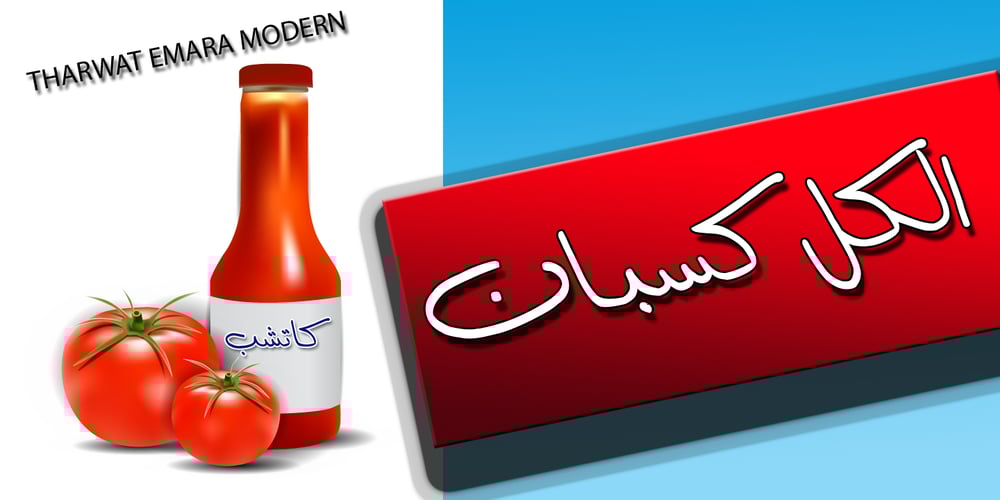
TE Modern Font Family was designed by Tharwat Mohamed Emara and published by Tharwat Emara. TE Modern contains 7 styles and family package options. Its one of the modern Arabic fonts, a spontaneous free line characterized by beauty and speed of reading. To be used in advertisements, writing titles, magazines, cartoons, films, serials, comics and plays.